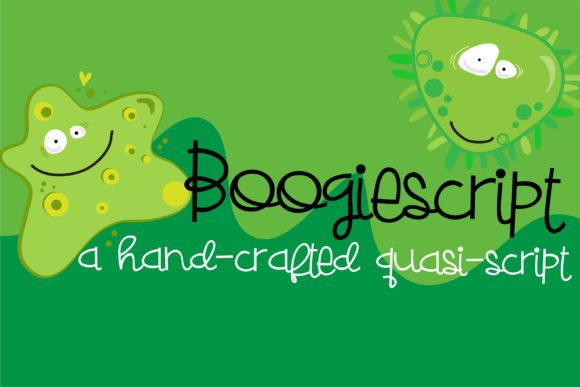
Introduction to Boogiescript Font
This casual hand-crafted quasi-script, has stiffly, upright lettering and a whimsical feel to it.
It coordinates well with her sister font: ZP Boogieman .